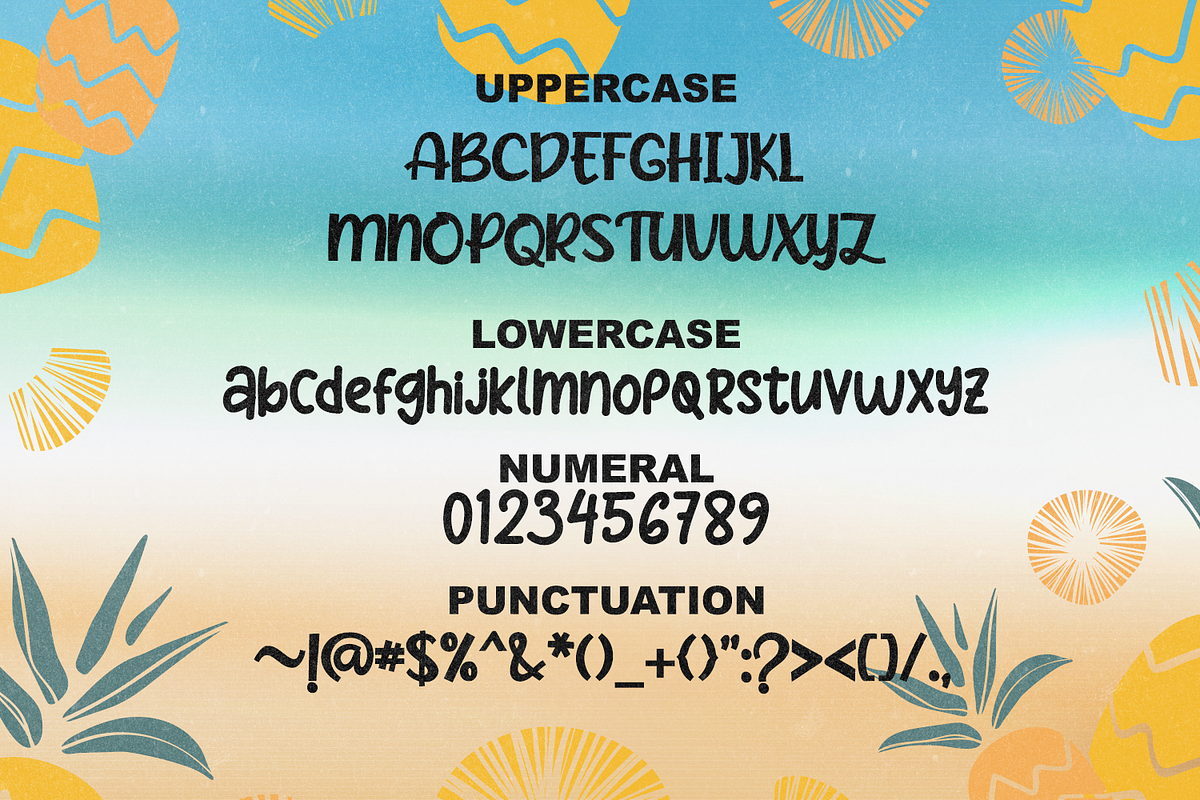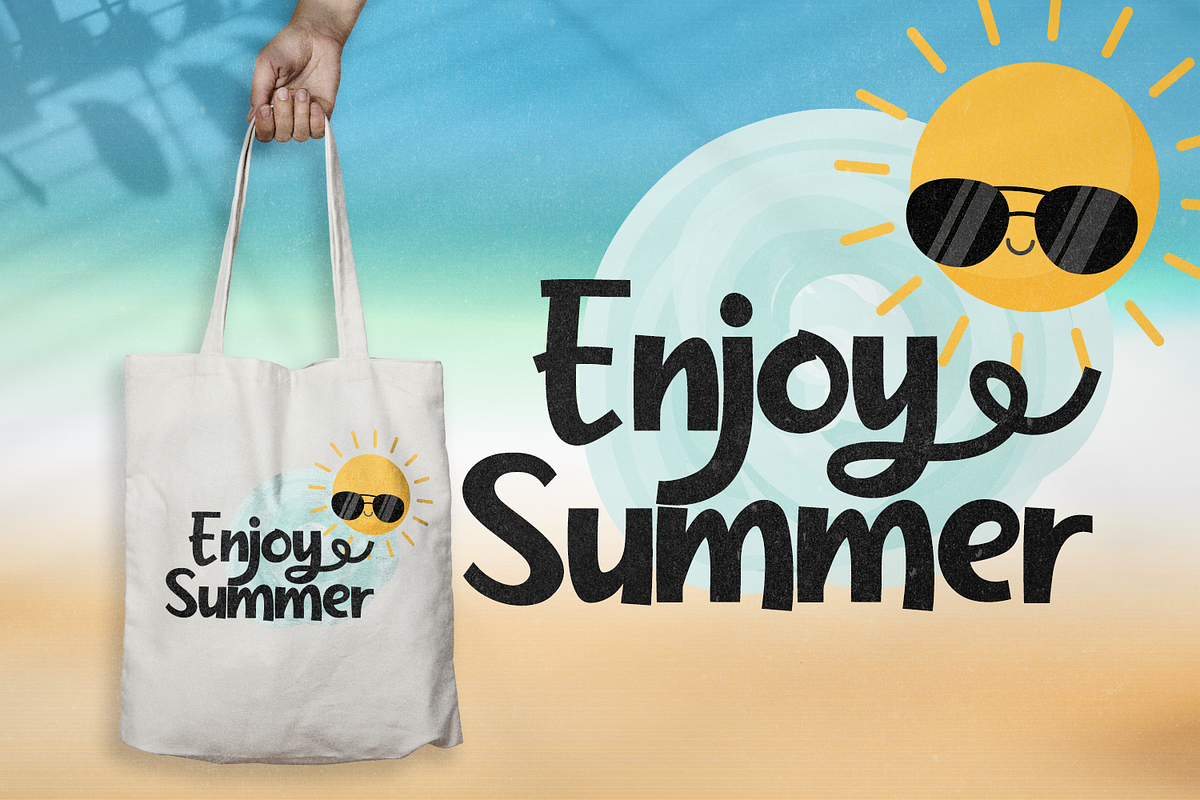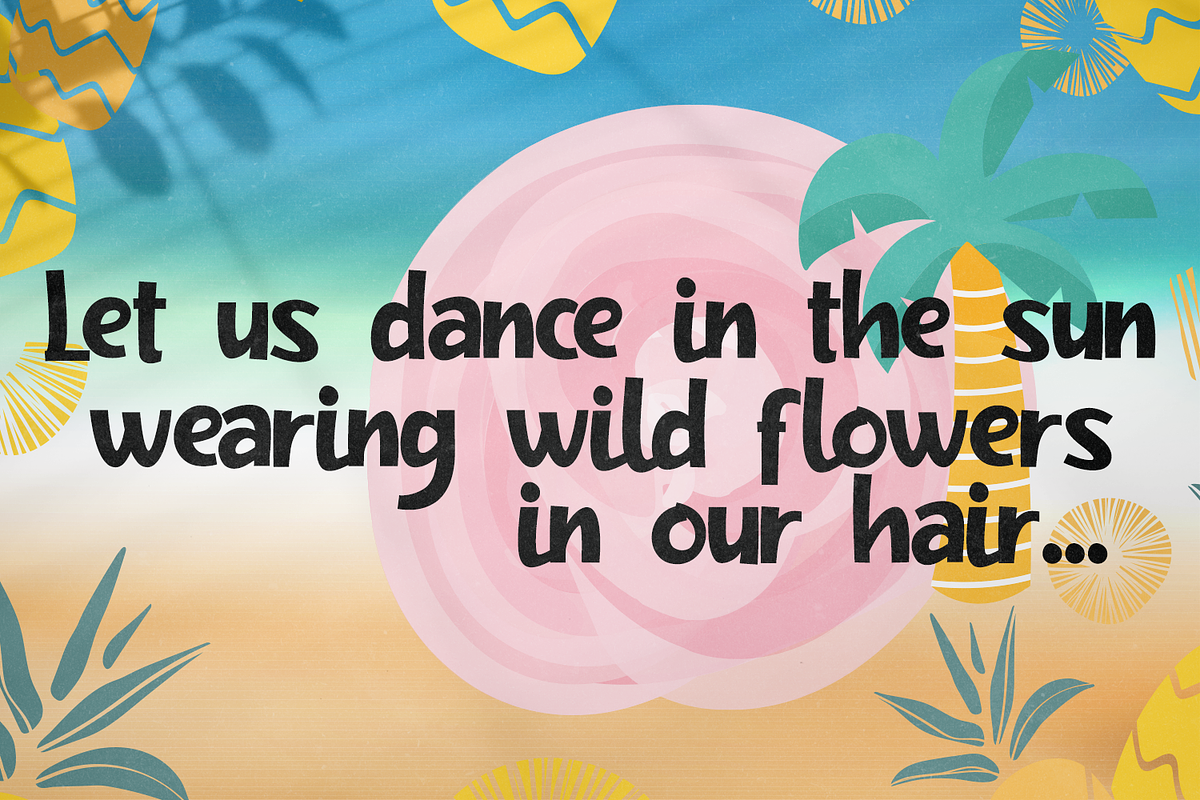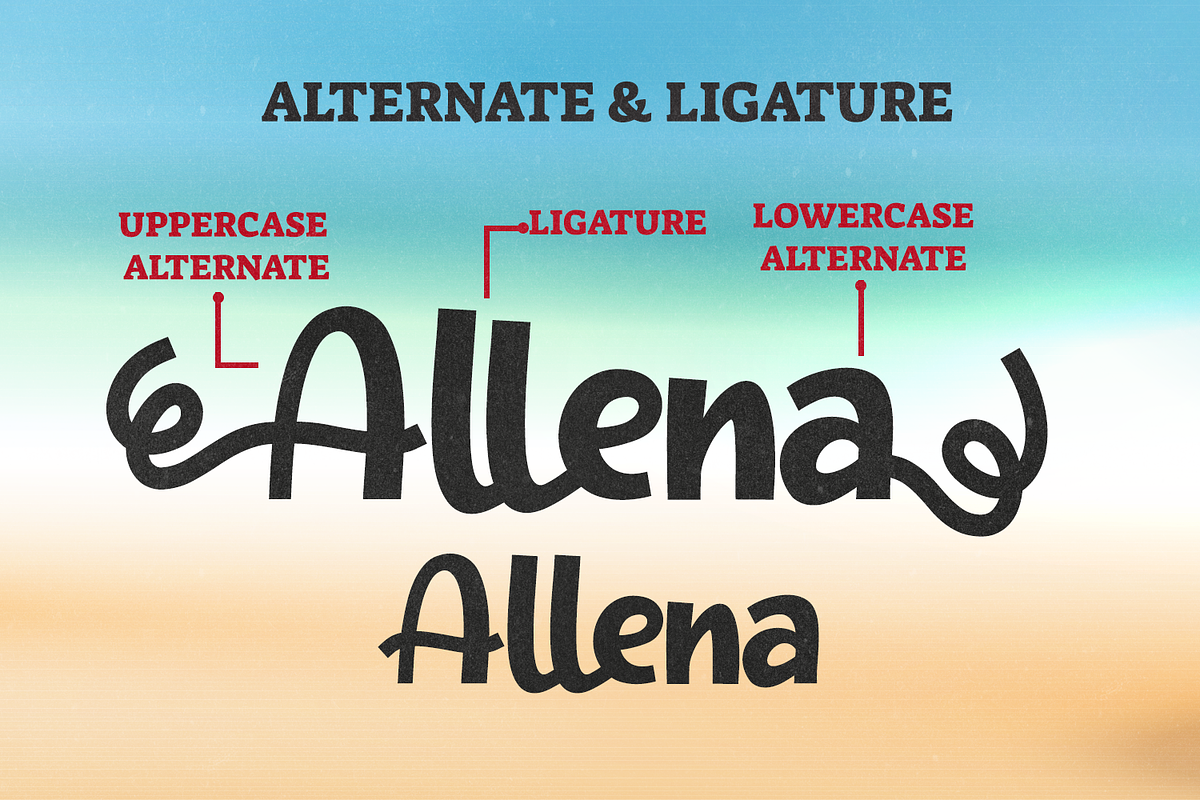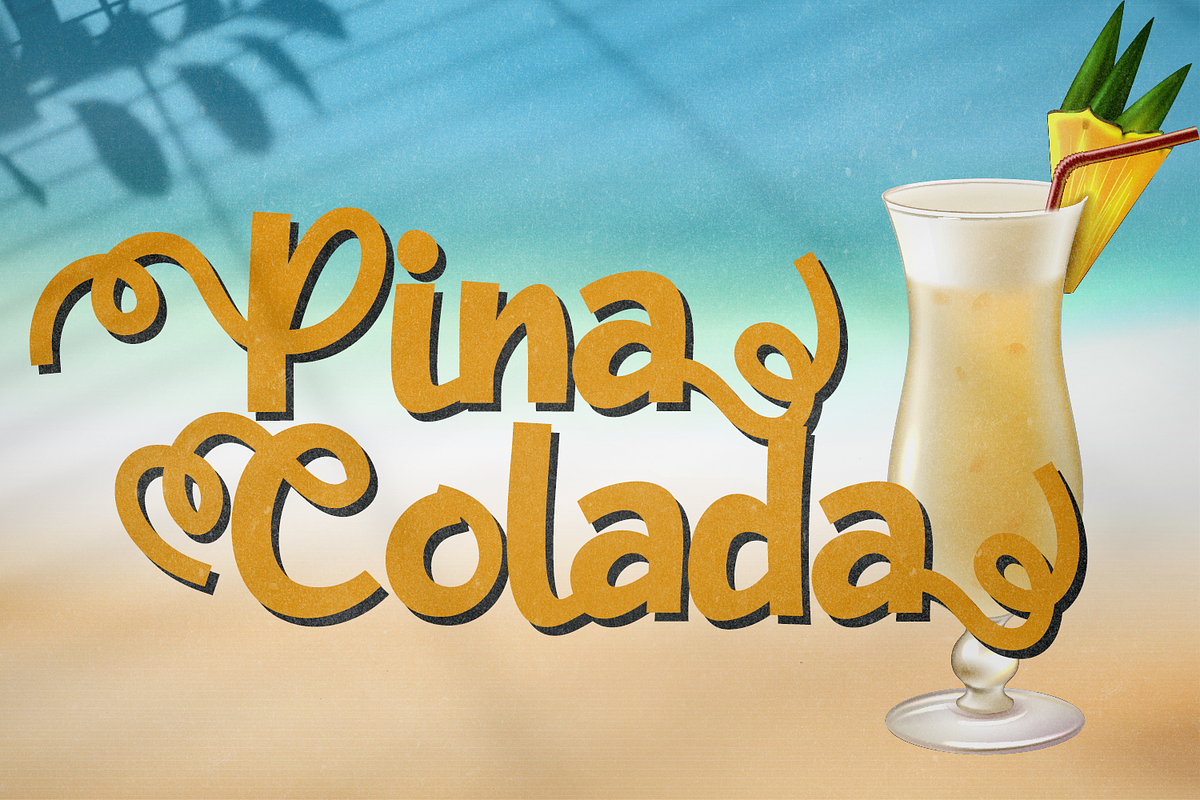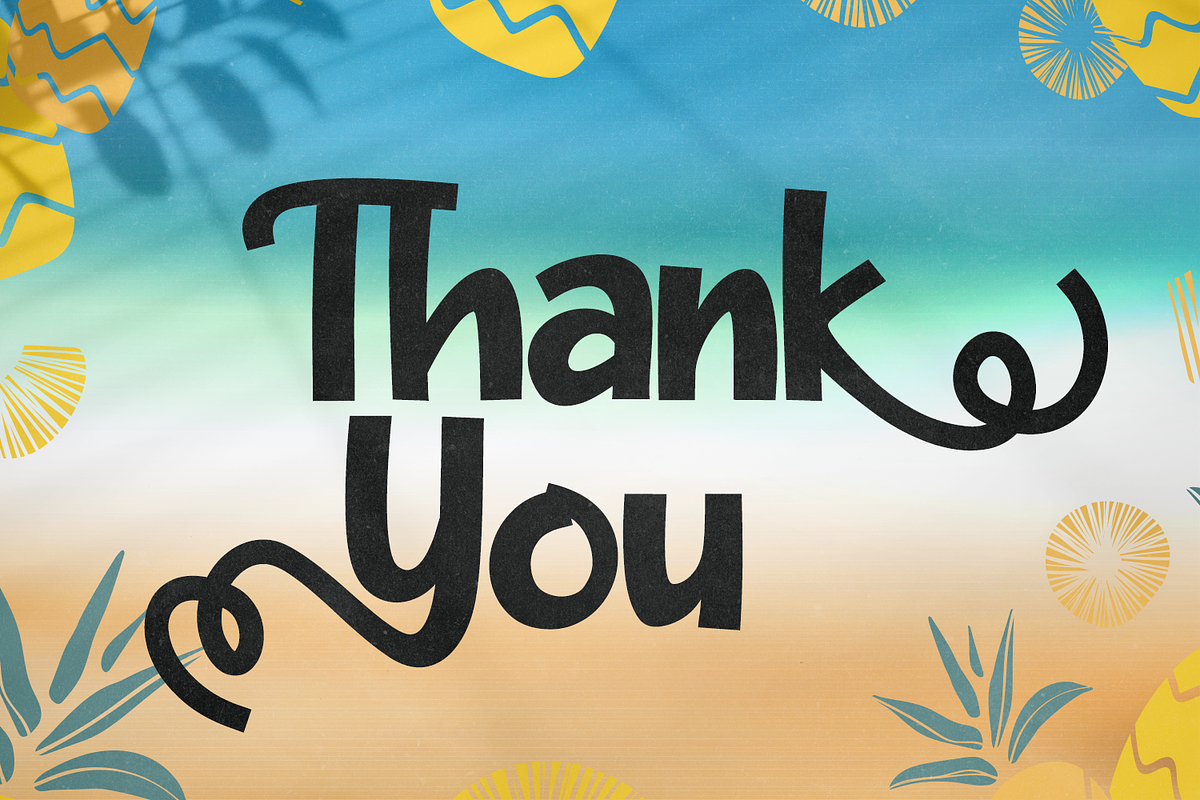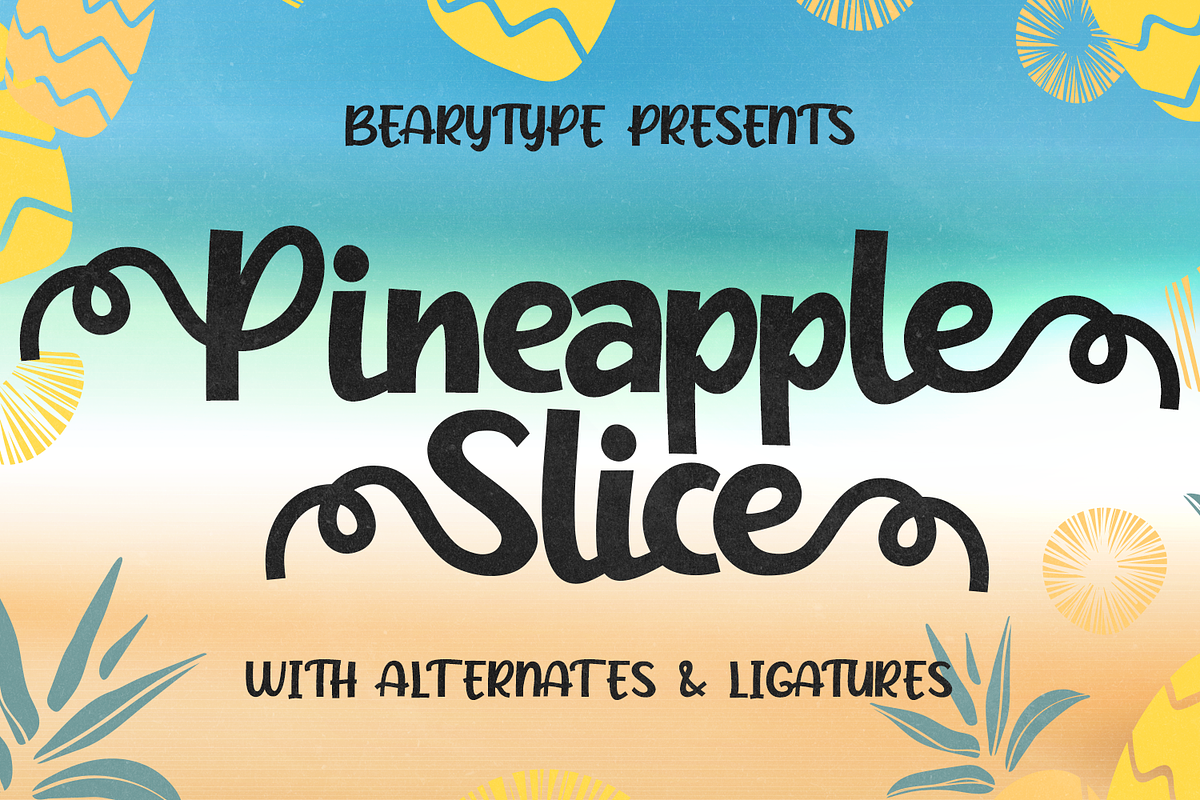
Pineapple Slice - Handwritten Font
Helo Introducing, Pineapple Slice. Amazing hand lettering look attractive and natural! Every single letters have been carefully crafted to make your text looks beautiful. This font includes over 250 glyphs, including over 53 alternate characters with swashes. It has over 60 extended Latin characters for language support. This font is suitable for invitation, branding, advertising, classic design, poster design etc, and also this font is PUA encoded so all characters are accessible via Character Map, Font Book, or the font management program of your choice.
- This font includes over 250 glyphs, including over 53 alternate characters with swashes.
- It has over 60 extended Latin characters for language support.